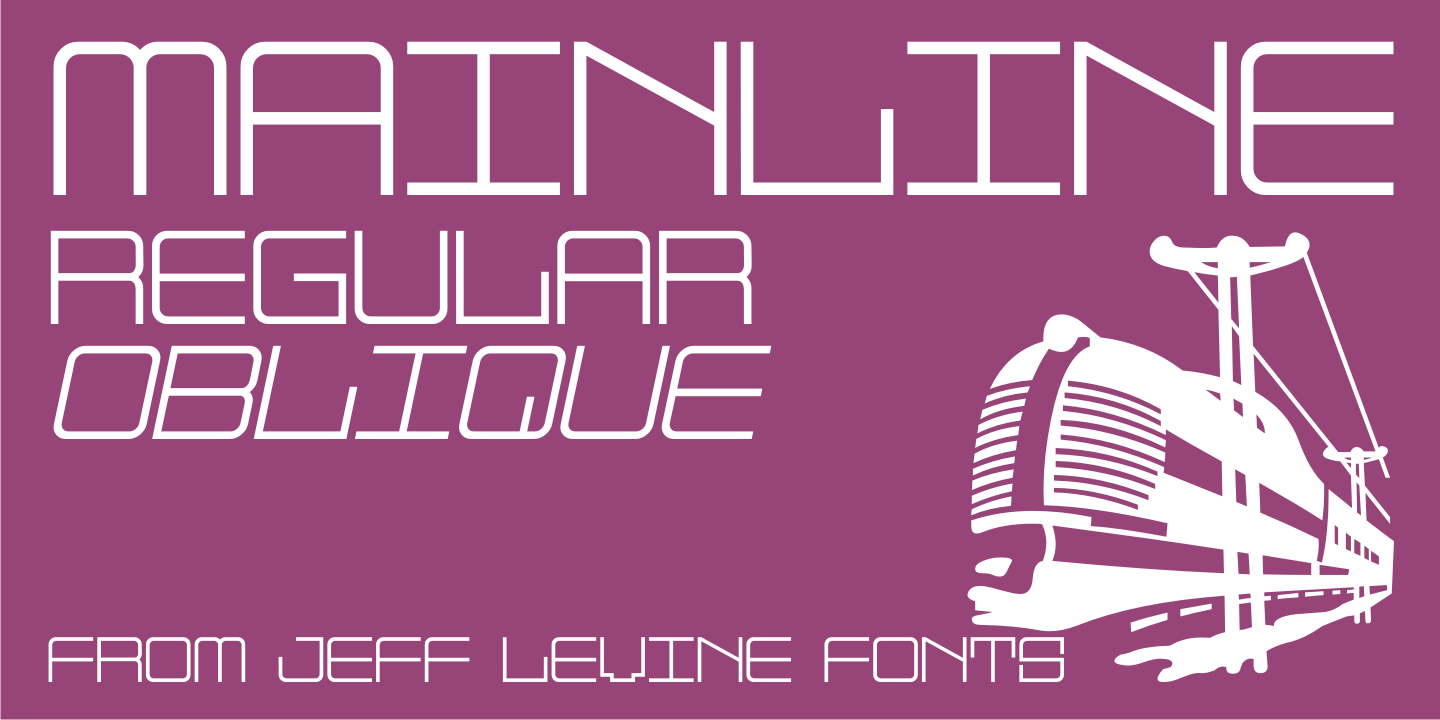
Mainline
With virtually no characters containing negative space to kern, Mainline JNL is an experimental typeface with a monospaced, fixed width design, utilizing a retro-techno-1980s look for a clean headline feel.